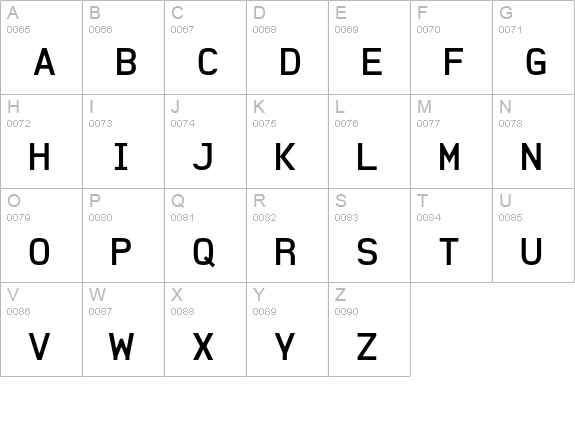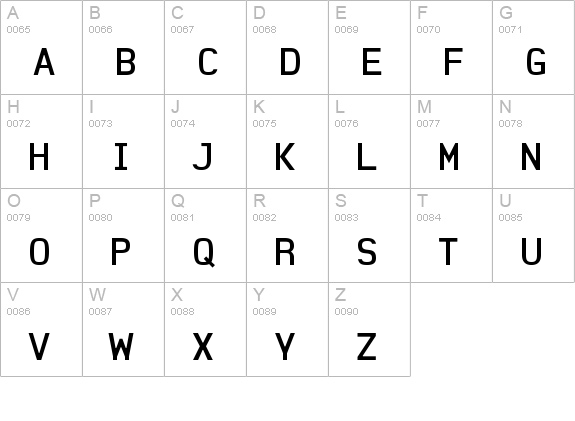
Introducing FauxCRA-Monospaced font - a sleek and modern typeface designed for all your creative projects. This versatile font combines the classic charm of monospaced characters with a contemporary twist, making it perfect for both digital and print applications. FauxCRA-Monospaced font features clean lines and sharp edges, giving your text a professional and polished look. Best of all, FauxCRA-Monospaced font is completely free to download at FontsMarket.com. Whether you're working on a website design, branding materials, or any other project that requires a stylish and readable typeface, FauxCRA-Monospaced font has got you covered. Elevate your designs with this unique and eye-catching font today!